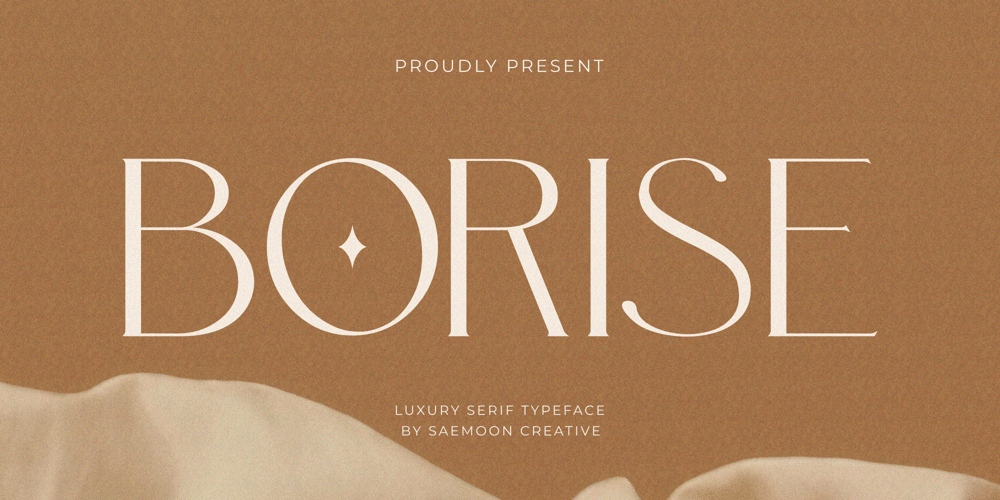
Borise Font Family was designed by Sapto Susilo and published by Saemoon Creative. Borise contains 1 styles and family package options. Borise is an elegant and modern serif, full of luxury for your design branding, styled thinly with harmonious curves to shape your design to perfection with an elegant touch. Borise is created with precision to make it easy for you to create elegant and charming works; this font can encompass various design projects ranging from logos, brand identities, product branding, web displays, advertising pamphlets, etc